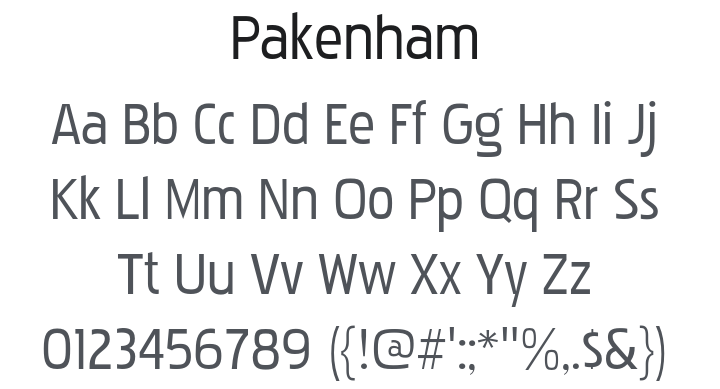
Pakenham Font
About Pakenham
Pakenham is a square-shouldered sans serif that balances order and warmth. Its superelliptical curves and angled ascender ends add subtle personality to an otherwise disciplined structure, giving text a composed, human tone. Four weights, two widths, italics, and special effect styles make it adaptable from long-form reading to bold headlines and tight signage. Whether used in municipal branding, editorial design, or packaging, Pakenham delivers clarity and reliability without corporate sterility, a versatile, quietly confident workhorse built for everyday design.